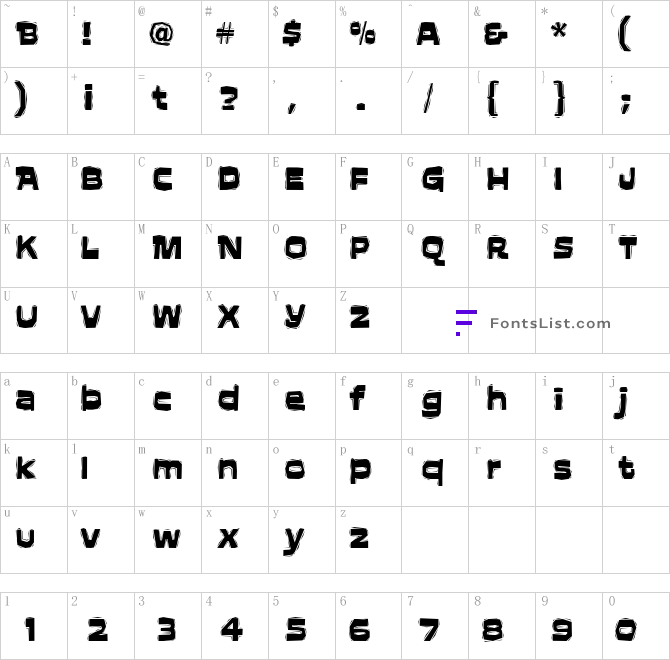
AftershockITC.ttf is a very beautiful artistic font, AftershockITC.ttf is widely used in the design and printing of various books and pictures,AftershockITC.ttf has a strong visual impact,AftershockITC.ttf is a commonly used font in newspapers, magazines and books, and is used in posters, e-commerce Poster design, store design, logo design, font design and other fields.AftershockITC.